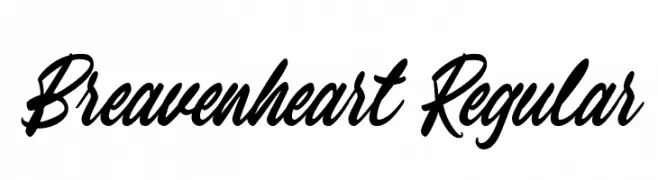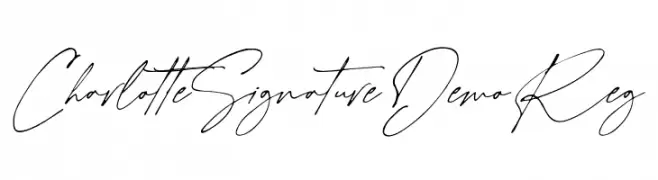
A bold and expressive brush-style font with dynamic strokes.
A sophisticated handwritten font with fluid, cursive strokes and elegant character connections.
A fluid, cursive handwritten font with a natural and elegant style.
A dynamic script font with fluid, cursive strokes and a handwritten feel.
A bold, handwritten font with a playful and energetic style.
A bold, expressive handwritten font with dynamic strokes and a brush-like texture.
A bold, dynamic brush script font with an expressive, hand-painted style.
A bold, textured script font with a hand-drawn, cursive style.
A dynamic brush-style font with bold, sweeping strokes and a hand-painted appearance.
A bold, brush script font with a dynamic and textured style.